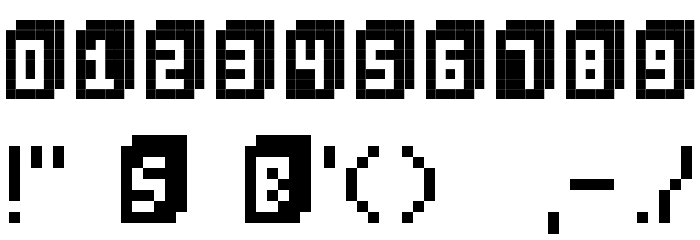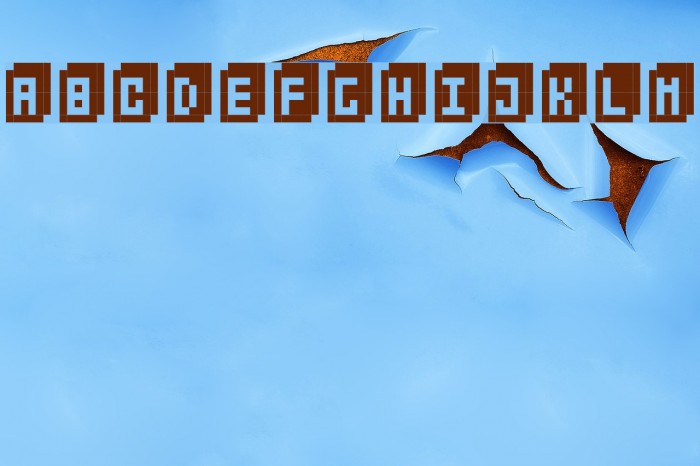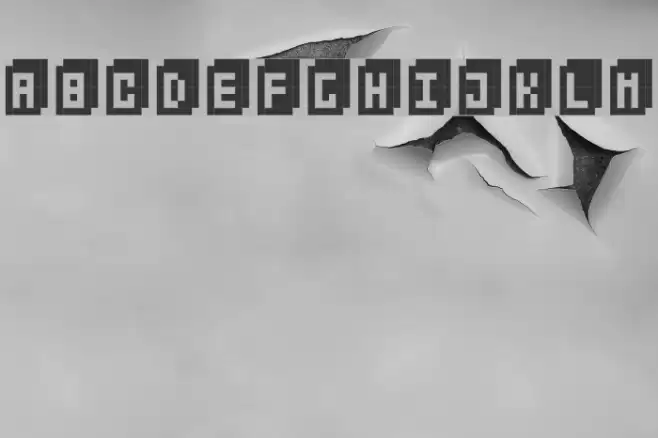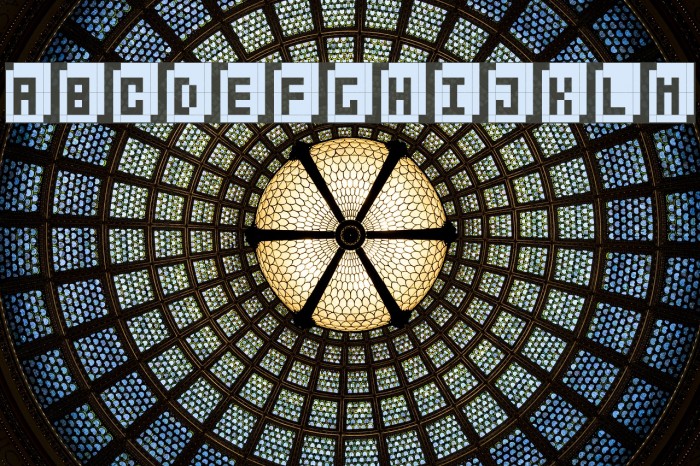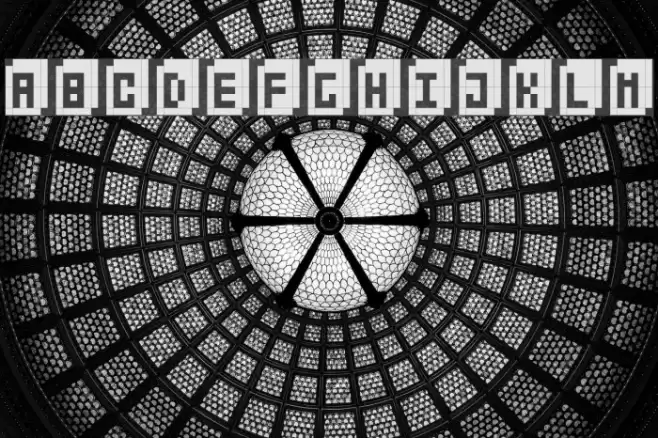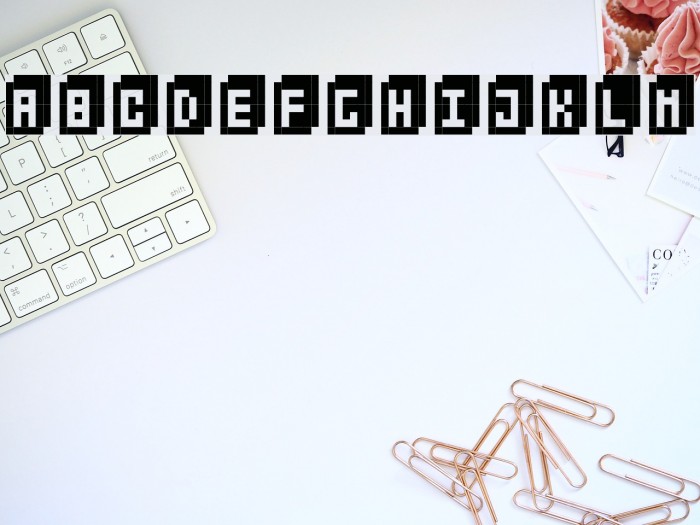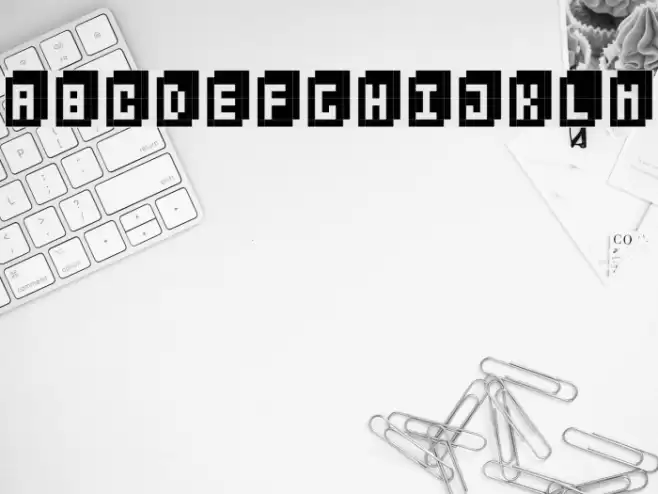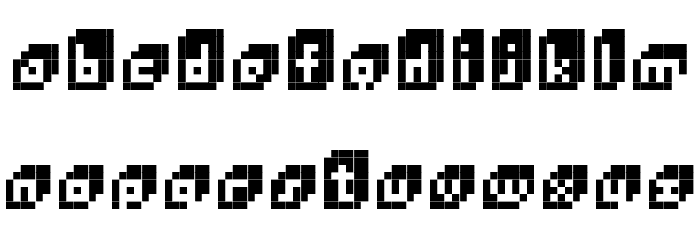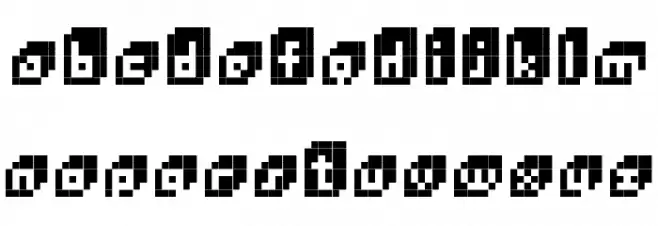
BitCube Font
BitCube Description
This font features a distinct pixelated style, reminiscent of early digital displays and retro video games. Each character is constructed from a grid of squares, giving it a blocky, geometric appearance. The uniformity in the design creates a cohesive look across all characters, from uppercase to lowercase, numbers, and special symbols. The font's aesthetic is both nostalgic and modern, making it ideal for projects that require a digital or tech-inspired theme. Its bold and structured form ensures readability while maintaining a unique visual appeal.
| Overall Style | Retro, Digital |
| Proposed Projects | Ideal for video game design, tech-themed posters, digital art projects, and retro-style branding. |